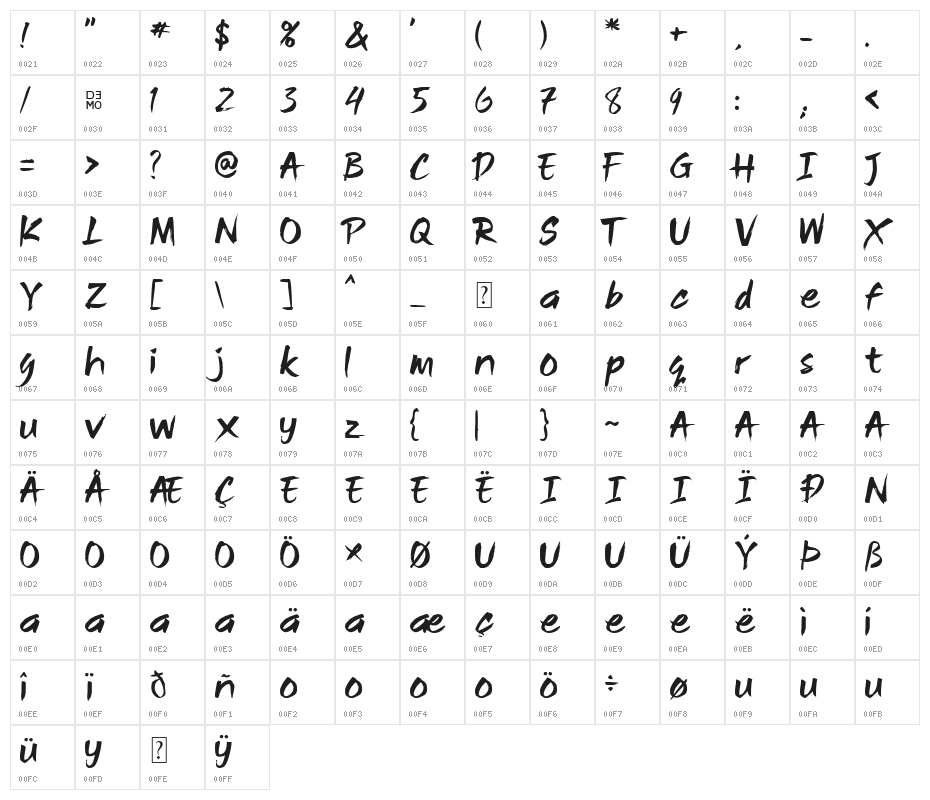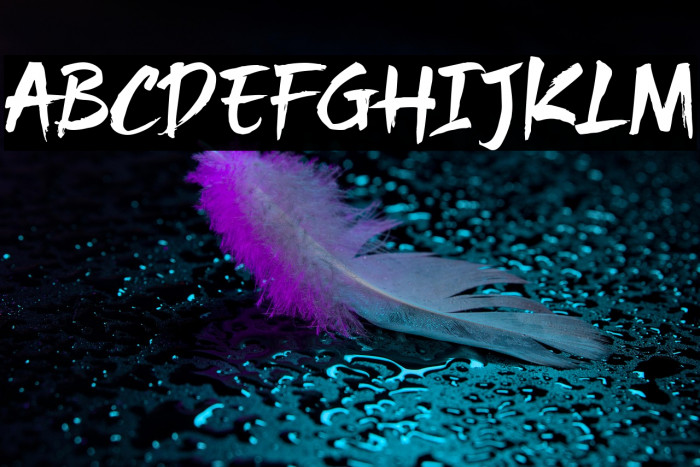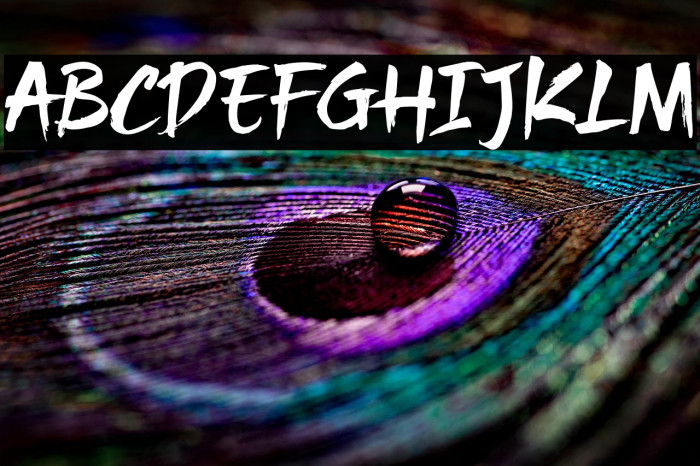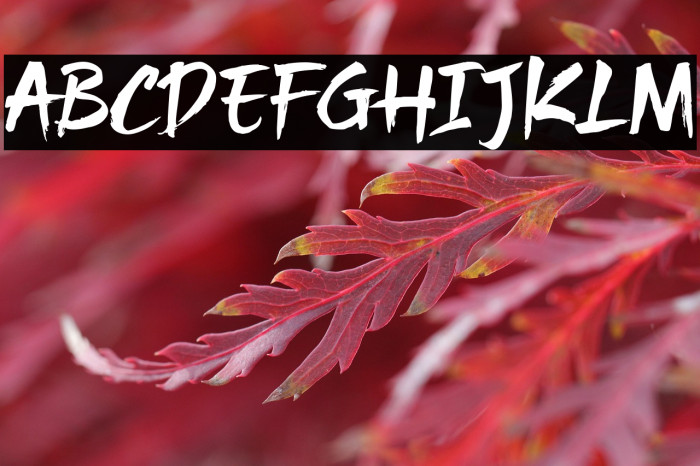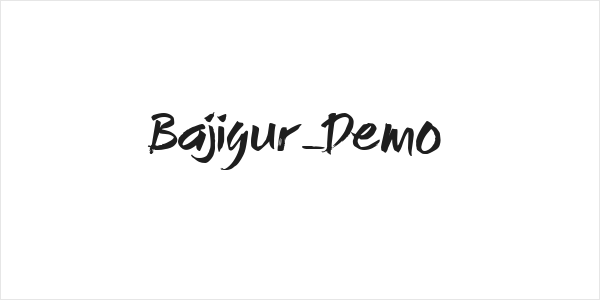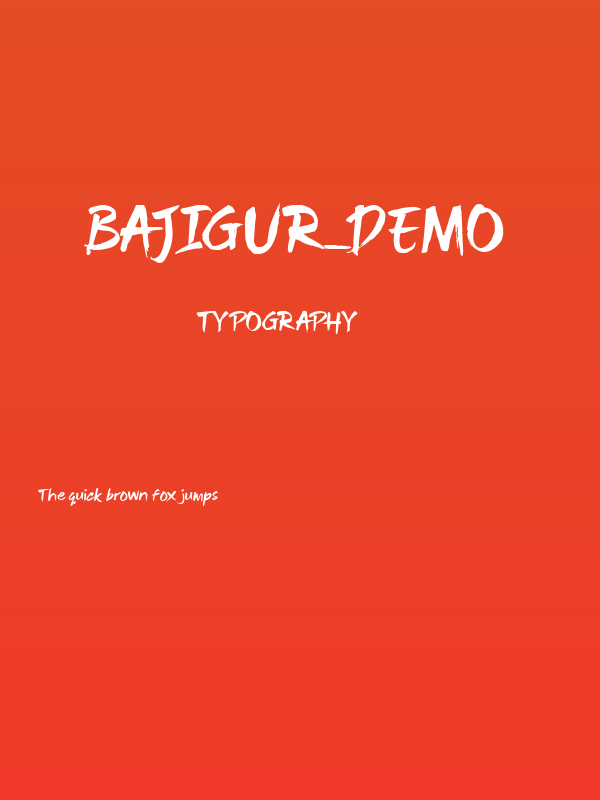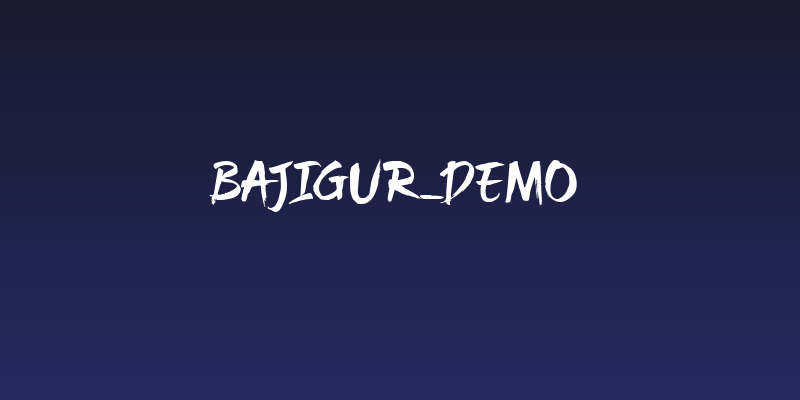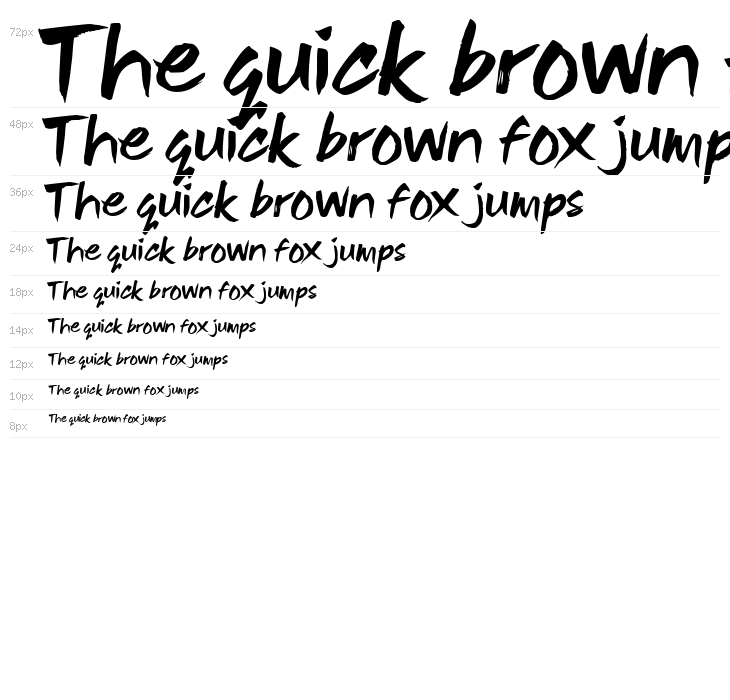
Bajigur_Demo Font
Bajigur_Demo Description
This font features a bold and dynamic brush script style, characterized by its energetic strokes and expressive forms. The uppercase letters are slightly slanted, giving a sense of movement and fluidity, while the lowercase letters maintain a consistent flow with varying stroke thickness. The numbers and special characters follow the same lively aesthetic, making them stand out with their artistic flair. The overall appearance is both modern and artistic, suitable for projects that require a touch of creativity and boldness.
| Overall Style | Modern, Artistic |
| Proposed Projects | Ideal for branding, posters, artistic projects, and headlines that require a creative and bold touch. |